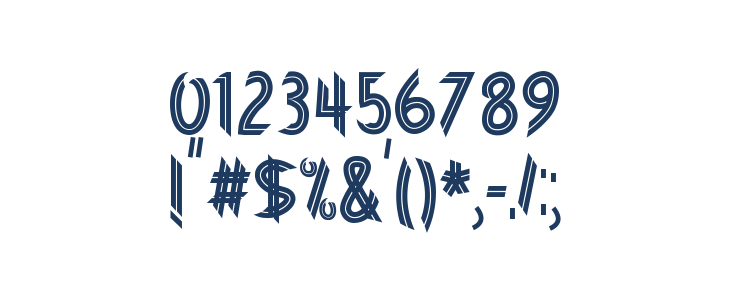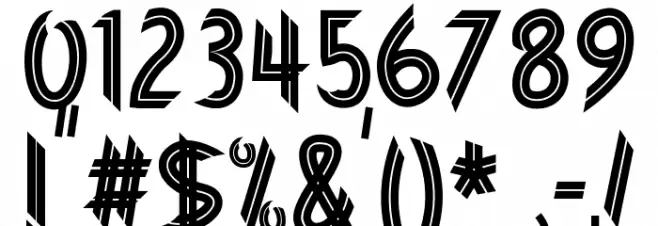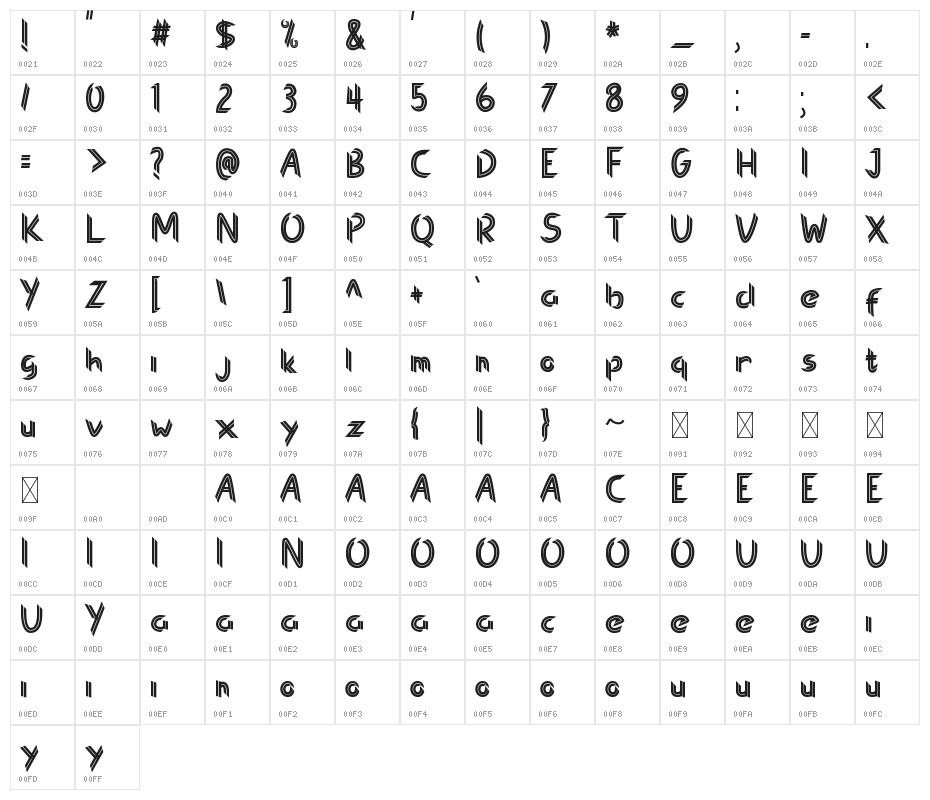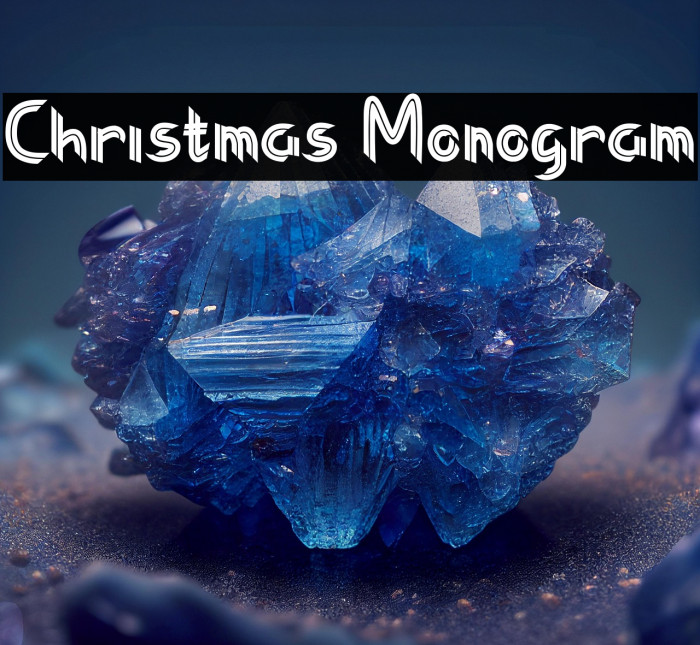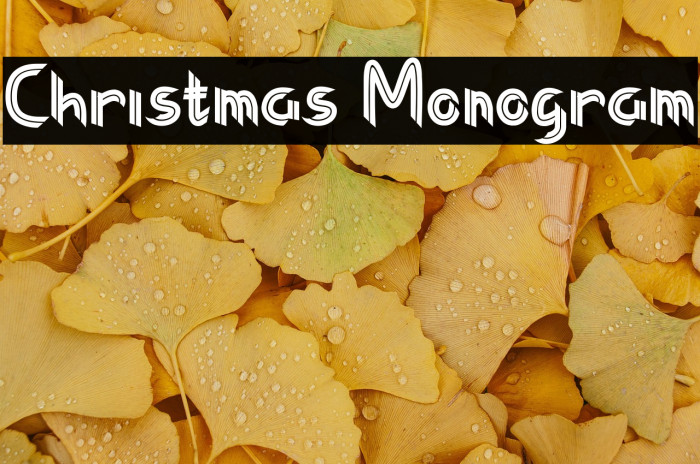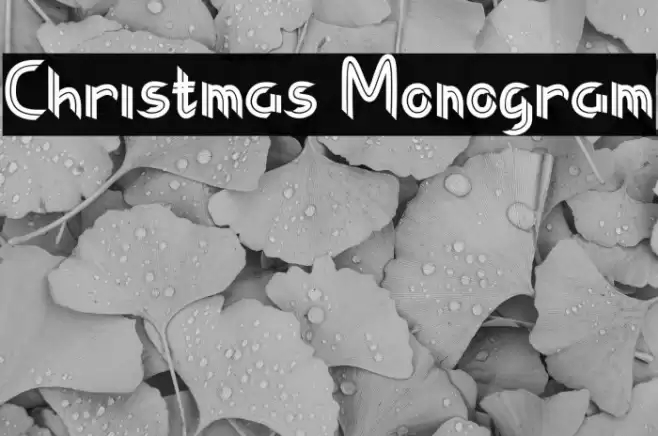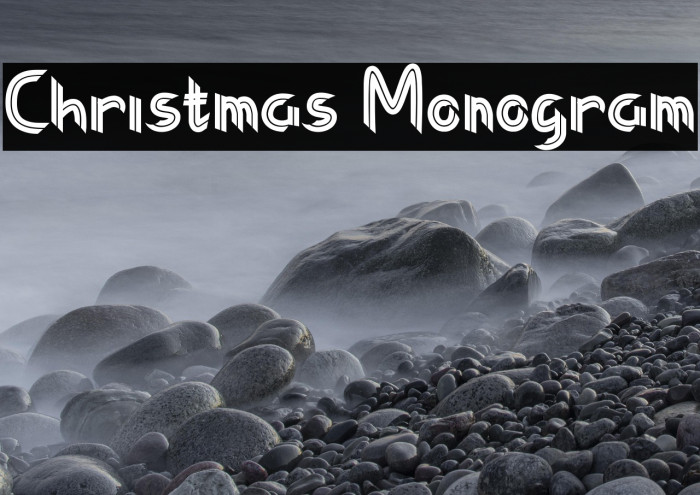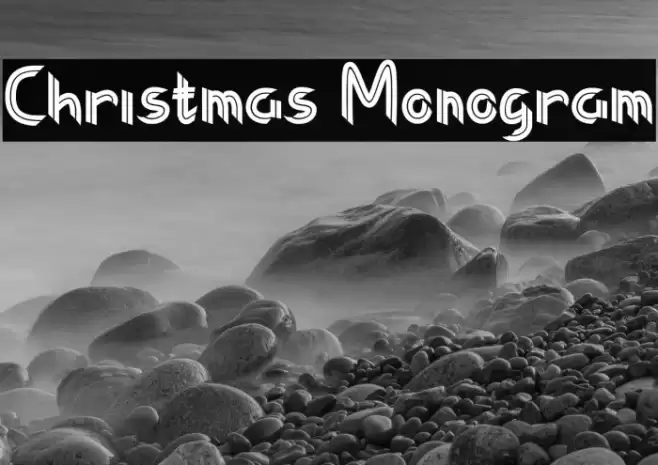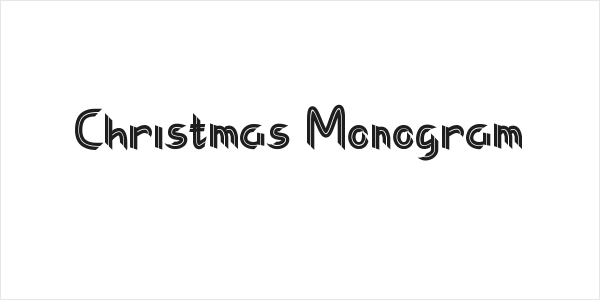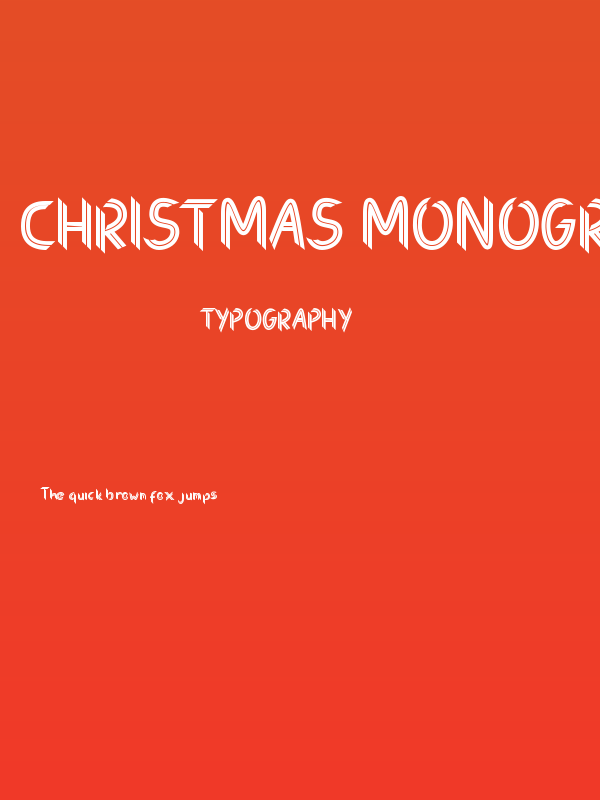
Christmas Monogram Font
Christmas Monogram Description
This font features a bold and decorative style with a festive flair, perfect for holiday-themed designs. The characters are designed with a unique, angular pattern that gives them a dynamic and playful appearance. The uppercase and lowercase letters maintain a consistent style, with sharp edges and a slight slant that adds to the overall festive feel. The numbers and special characters are equally stylized, ensuring a cohesive look across all text elements. This font is ideal for creating eye-catching headlines, invitations, and greeting cards that require a touch of holiday spirit.
| Overall Style | Festive, Decorative |
| Use Case | Headlines, Invitations, Greeting Cards |
| Proposed Projects | Ideal for holiday cards, festive invitations, seasonal posters, and decorative headlines. |